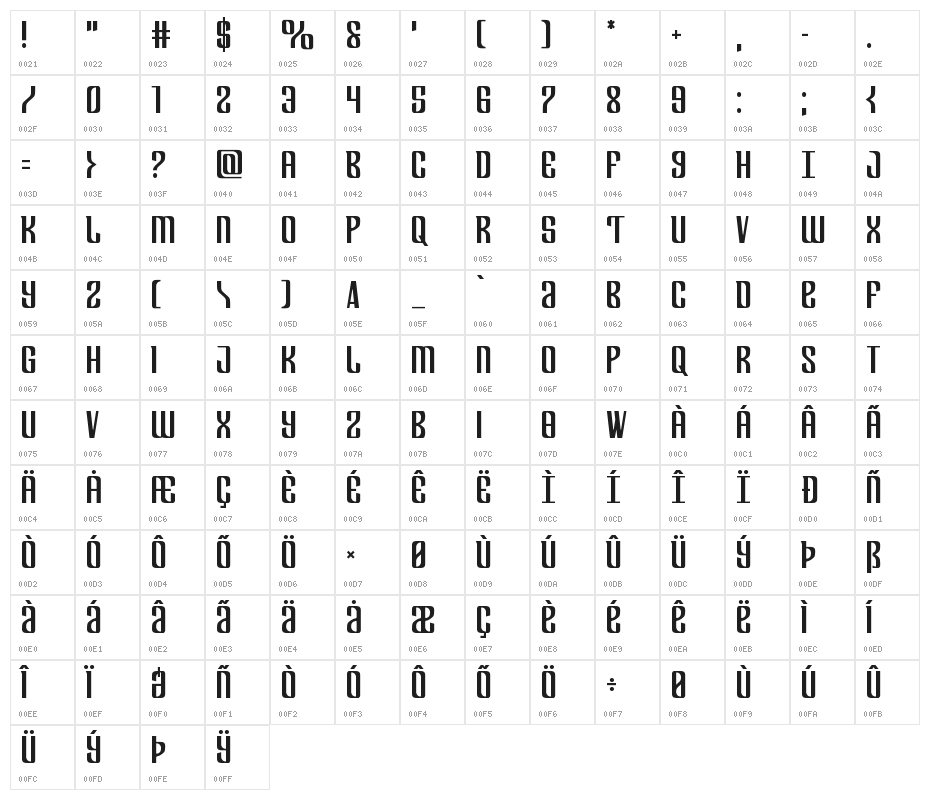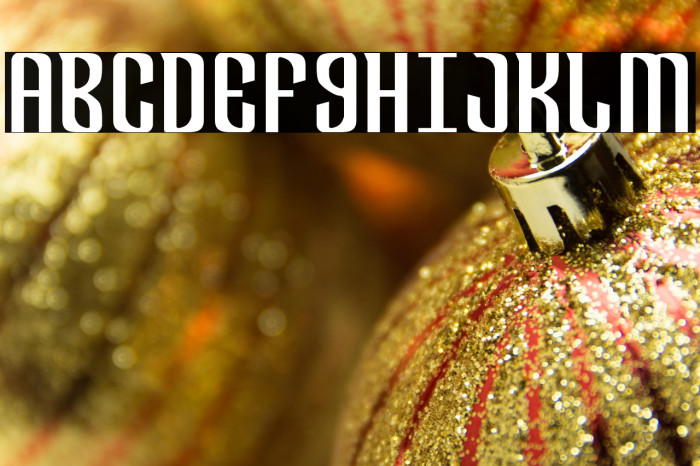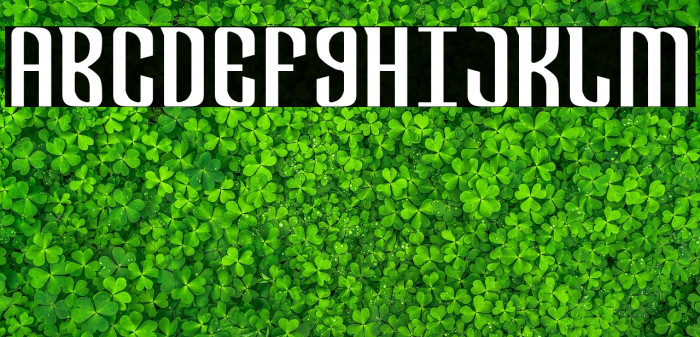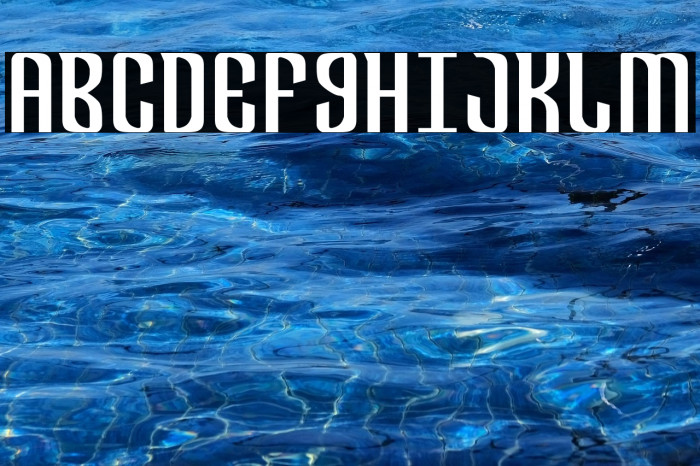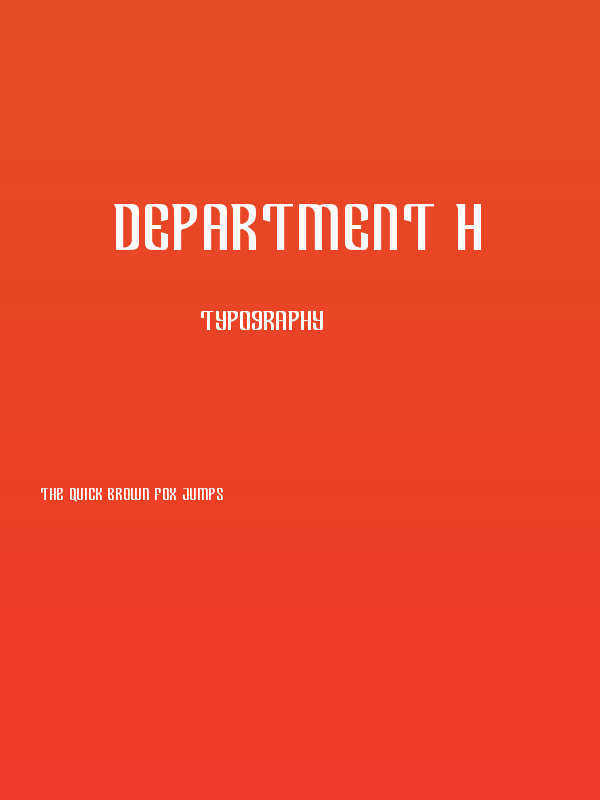
Department H Font
Department H Description
This font features a bold and striking design with a modern twist. The characters are tall and narrow, with a distinct geometric influence that gives them a unique and contemporary appearance. The uppercase letters are particularly prominent, showcasing a strong vertical emphasis and minimal curves, which contribute to a clean and streamlined look. The lowercase letters maintain this aesthetic, providing consistency across the typeface. Numbers and special characters are designed with the same attention to detail, ensuring a cohesive visual style throughout. The font's boldness and clarity make it ideal for attention-grabbing headlines and impactful designs.
| Proposed Projects | Ideal for branding, posters, headlines, and any design requiring a modern and impactful typeface. |